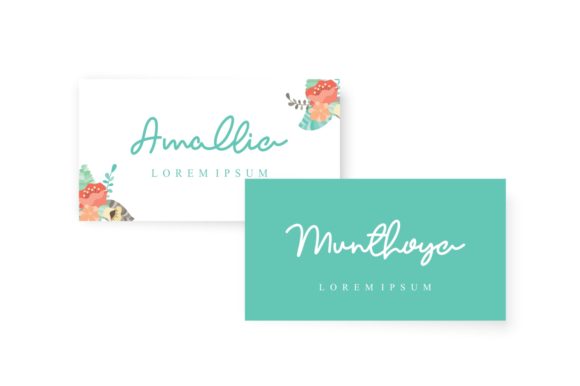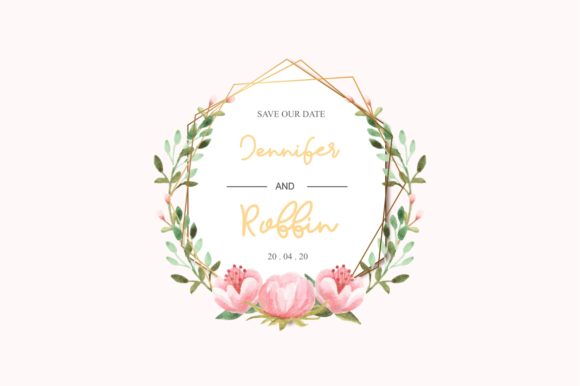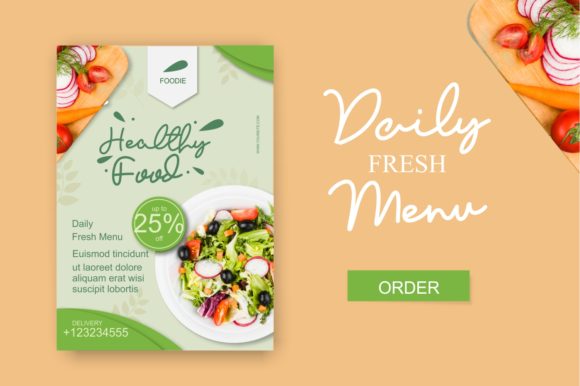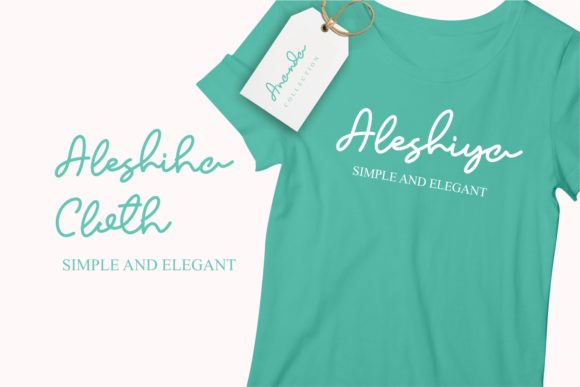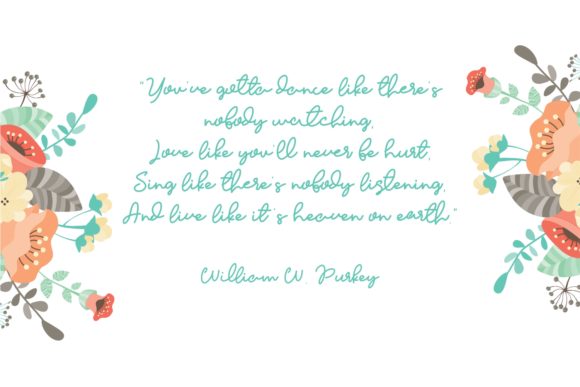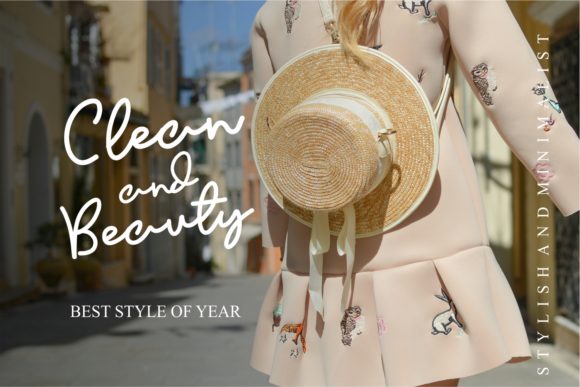
Aleshiya Font: The Sweet and Delicate Handwritten Font for Romantic Designs
Are you a designer or crafter looking for a font that can add a touch of romance and personality to your designs? Look no further than Aleshiya Font! This sweet and delicate handwritten font is perfect for creating beautiful wedding invitations, cards, and other designs that require a personal and loving touch.
What is Aleshiya Font?
Aleshiya Font is a modern handwritten font that is characterized by its dainty and joyful strokes. Its elegant and refined design makes it ideal for a variety of design projects, from wedding stationery to branding and packaging. The font is designed to evoke a sense of romance and whimsy, making it perfect for designers and crafters who want to create unique and eye-catching designs.
Key Features of Aleshiya Font
• Sweet and delicate design: Aleshiya Font features a beautiful, handwritten design that is both sweet and delicate. Its intricate strokes and elegant lines make it perfect for creating romantic and personalized designs.
• Dainty and joyful strokes: The font’s dainty and joyful strokes give it a playful and whimsical feel, making it ideal for designers and crafters who want to add a touch of personality to their designs.
• Romantic and personalized touch: Aleshiya Font is designed to add a romantic and personalized touch to your designs. Its elegant and refined design makes it perfect for wedding invitations, cards, and other designs that require a personal and loving touch.
Uses of Aleshiya Font
Aleshiya Font is a versatile font that can be used for a variety of design projects, including:
• Wedding invitations and stationery: Aleshiya Font is perfect for creating beautiful and elegant wedding invitations, save-the-date cards, and other wedding stationery.
• Cards and gift tags: The font’s sweet and delicate design makes it ideal for creating personalized cards and gift tags for special occasions.
• Branding and packaging: Aleshiya Font can be used for branding and packaging projects that require a touch of elegance and sophistication.
• Social media graphics: The font’s playful and whimsical design makes it perfect for creating eye-catching social media graphics and posts.
Why Choose Aleshiya Font?
There are many reasons why designers and crafters choose Aleshiya Font for their design projects. Here are a few:
• Unique and eye-catching design: Aleshiya Font features a unique and eye-catching design that is sure to stand out from the crowd.
• Elegant and refined: The font’s elegant and refined design makes it perfect for creating sophisticated and high-end designs.
• Easy to read: Aleshiya Font is easy to read, making it perfect for designs that require a clear and legible font.
• Versatile: The font’s versatility makes it perfect for a variety of design projects, from wedding stationery to branding and packaging.
Tips for Using Aleshiya Font
Here are a few tips for using Aleshiya Font in your design projects:
• Use it for headlines and titles: Aleshiya Font is perfect for headlines and titles, where its elegant and refined design can really shine.
• Pair it with other fonts: The font can be paired with other fonts to create a unique and eye-catching design.
• Experiment with different colors: Aleshiya Font looks great in a variety of colors, from soft pastels to bold and bright hues.
In conclusion, Aleshiya Font is a beautiful and versatile font that is perfect for designers and crafters who want to add a touch of romance and personality to their designs. Its sweet and delicate design, dainty and joyful strokes, and elegant and refined lines make it ideal for a variety of design projects, from wedding stationery to branding and packaging. So why not give Aleshiya Font a try and see how it can elevate your designs?